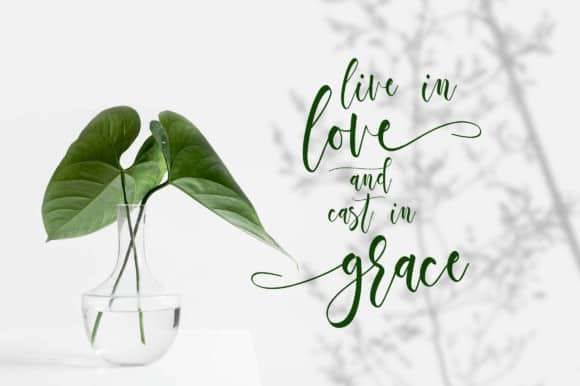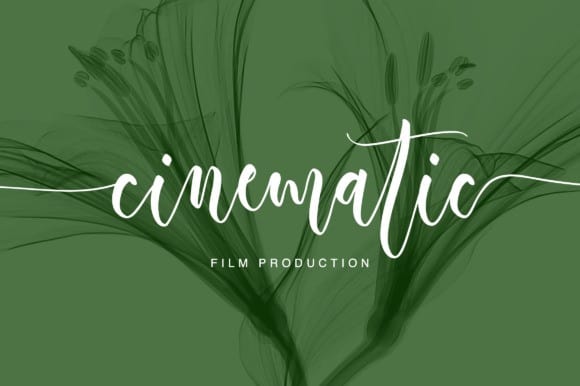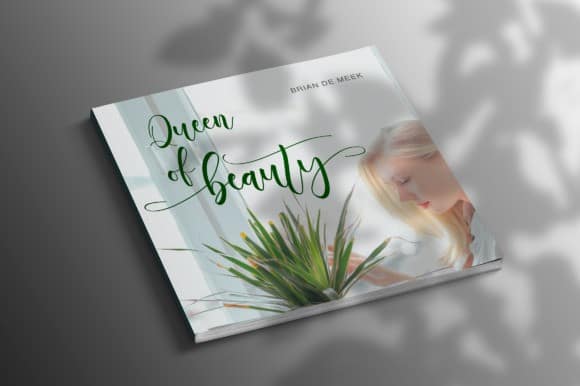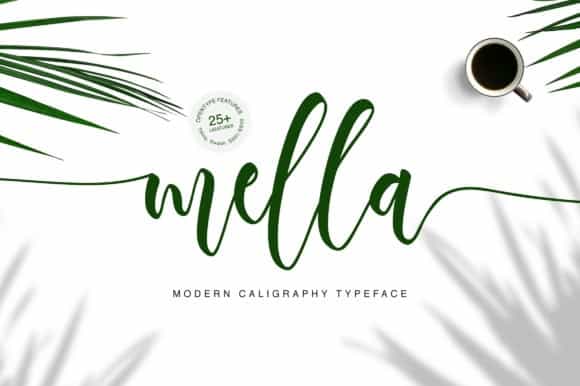
Mella Calligraphy Font
Mella Calligraphy Font is a beautiful calligraphy typeface with many alternative styles, this font looks natural,luxury, elegant and perfect for any extraordinary project. It’s a calligraphy font from the designer Letteratom. It features an incredibly classic style, while still keeping a friendly feel. Mella is the perfect font for making original and outstanding designs. Suitable for various products such as invitations, product packaging, quotes, product design, crafting, labels, photography, watermarks, logos & branding.